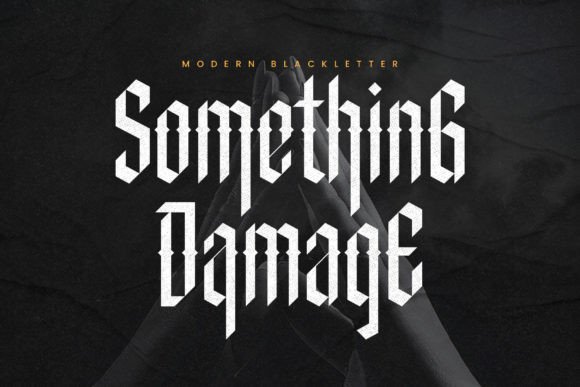
Journey into the realm of darkness, elegance, and confidence with Something Damage, the modern blackletter font that exudes an aura of mystery and sophistication. Its condensed letterforms and sharp edges, inspired by geometric shapes, create a striking visual impact that demands attention.
Designed by the skilled artists at Arterfak Project, Something Damage is a display font that adds a touch of luxury to any design project. Whether you're crafting headlines that command attention, creating captivating merchandise, or designing short quotes with a timeless appeal, this font is your perfect companion.
Indulge in the versatility of Something Damage, a font that effortlessly adapts to your creative vision. Its extra alternate characters and multilingual support open up a world of possibilities, allowing you to express your ideas in various languages and styles.
With Something Damage, you'll conquer the digital world, leaving a trail of elegance and sophistication in your wake. It's the ultimate choice for designers and creatives seeking a font that exudes confidence and makes a lasting impression. Embrace the power of Something Damage and elevate your designs to new heights!
Unleash the captivating charm of Something Damage, the blackletter font that speaks to your soul. Its intricate details and stunning aesthetics will leave you spellbound, transforming your designs into masterpieces of art. Experience the allure of Something Damage and unlock a world of creative possibilities.